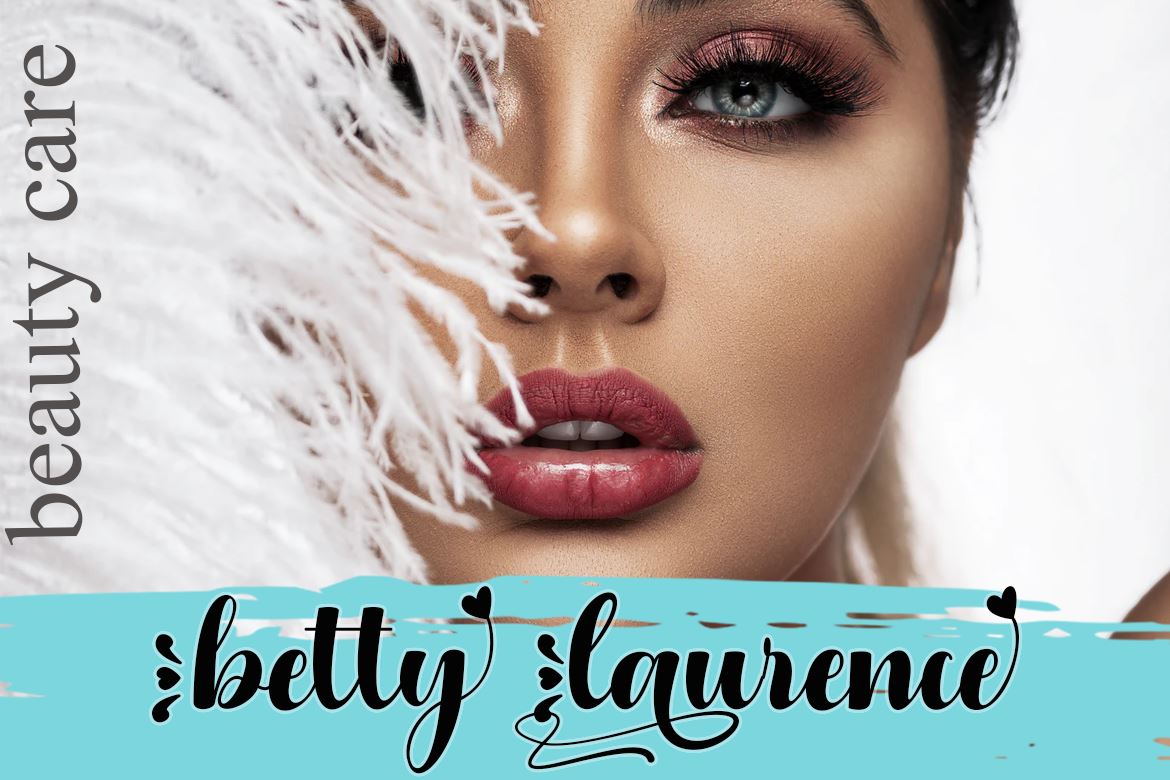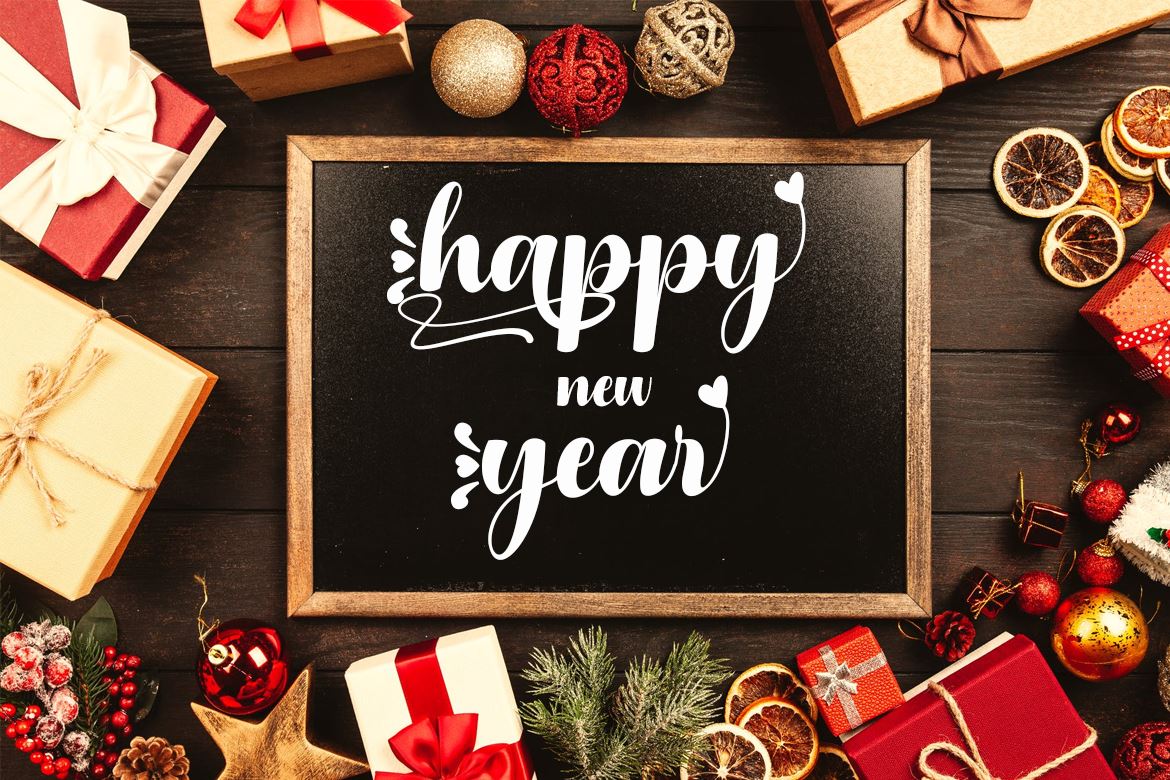
About Lavida
Lavida is a sweet, flowing and bold handwritten font. It looks stunning on wedding invitations, thank you cards, quotes, greeting cards, logos, business cards and every other design which needs a personalized, romantic touch. Feature : – Uppercase and Lowercase – Number and Punctuation – Multilingual – Alternate option – Ligature Files Include : – Lavida OTF – Lavida TTF and WOFF Thanks for visiting my shop..!